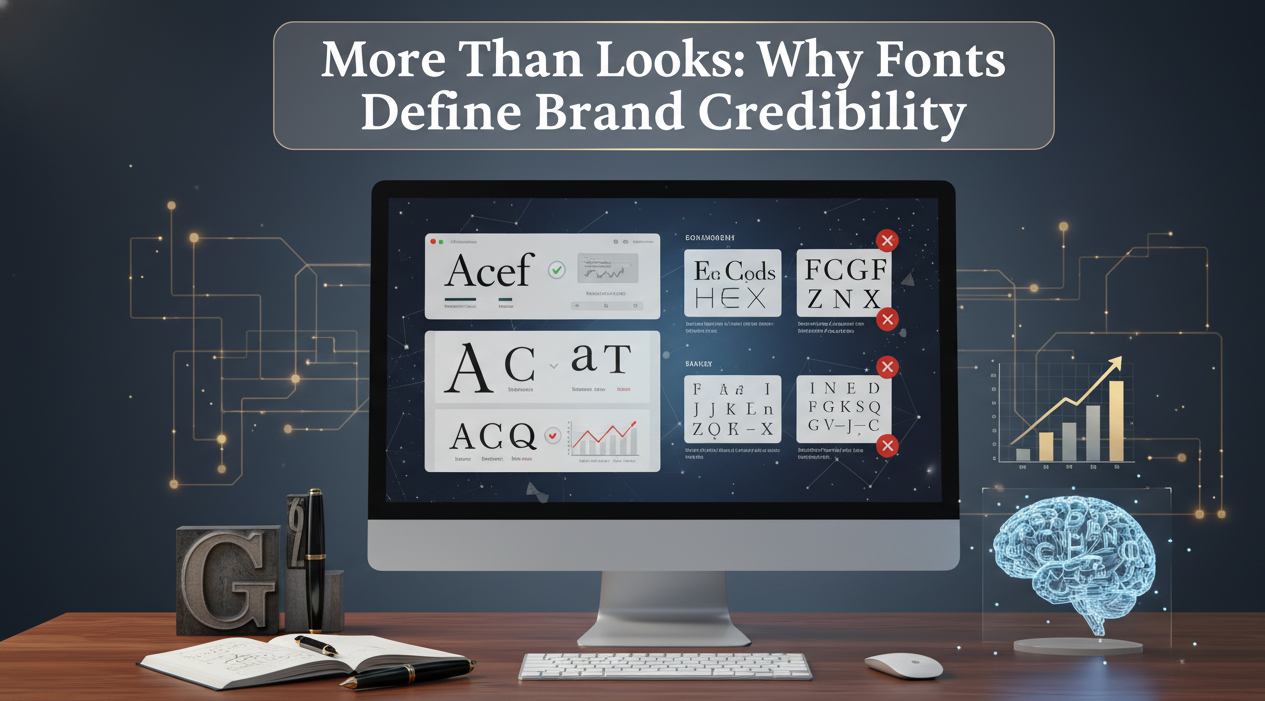
When people think about branding, logos, colors, and visuals often come to mind first. However, one of the most influential yet underestimated elements of brand identity is typography. Fonts are more than just a stylistic choice; they shape how your audience perceives your brand’s credibility, professionalism, and trustworthiness. In a digital world where first impressions happen in seconds, the right font can determine whether users engage with your content or move on.
Fonts Create the First Impression
Before users read your message, they subconsciously judge how it looks. Fonts play a crucial role in forming this instant perception. Clean, modern fonts signal reliability and clarity, while poorly chosen or inconsistent typography can make a brand appear unprofessional. A strong font choice communicates confidence and shows that your brand values quality and attention to detail.
Typography Reflects Brand Personality
Every font carries a personality. A bold sans-serif font conveys modernity and strength, while a serif font suggests tradition and authority. Creative or handwritten fonts express friendliness and individuality. When typography aligns with your brand’s values, it reinforces your identity and makes your message more authentic. Mismatched fonts, on the other hand, can confuse audiences and weaken brand trust.
Readability Builds Trust
Credible brands prioritize user experience, and readability is a core part of that experience. If text is difficult to read, users may feel frustrated or disengaged. Fonts with proper spacing, balanced proportions, and clear letterforms help ensure your message is delivered smoothly. Readable typography shows respect for your audience’s time and comfort, which strengthens trust.
Consistency Strengthens Brand Recognition
Using the same fonts across websites, social media, advertisements, and marketing materials creates a unified brand presence. Consistent typography helps audiences recognize your brand instantly and builds familiarity over time. This consistency signals professionalism and reliability, two essential components of brand credibility.
Fonts Influence User Behavior
Typography doesn’t just affect how your brand looks; it influences how users behave. Well-structured fonts guide readers through content, highlight key information, and improve call-to-action performance. Clear, confident typography encourages users to engage, explore, and convert, making it a strategic asset in marketing and branding.
Professional Typography Sets You Apart
In competitive markets, credibility can be the deciding factor. Brands that invest in thoughtful typography stand out as polished and trustworthy. A refined font system elevates everything from social media posts to landing pages, helping your brand appear established and dependable.
Conclusion
Fonts are more than visual decoration; they are powerful tools that shape perception, build trust, and define brand credibility. From first impressions to long-term recognition, typography plays a central role in how audiences connect with your brand. Choosing the right fonts helps ensure your message is not only seen but also believed.